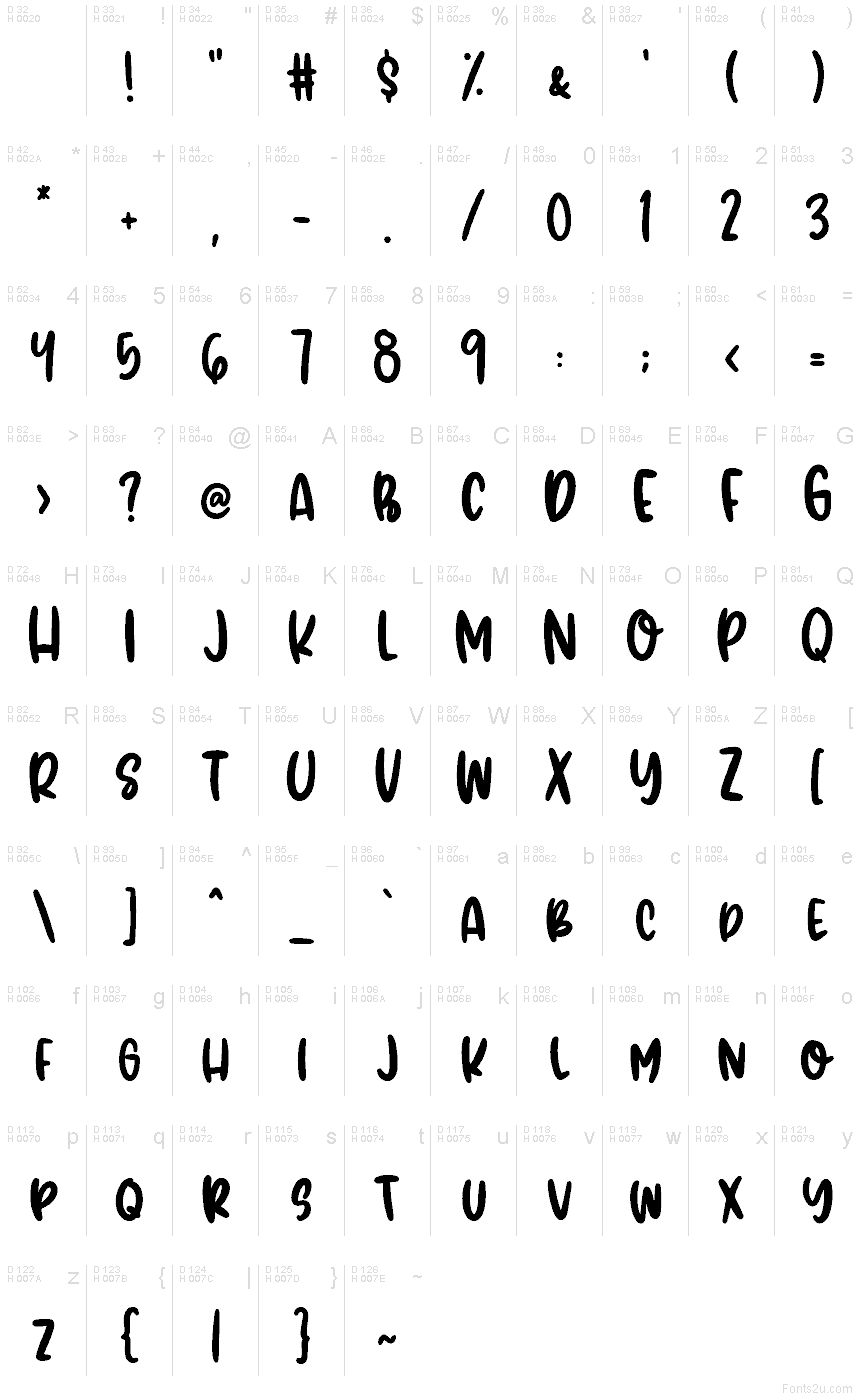
Baby Donuts
Baby Donuts font by Dm Letter Studio - Dimas Prasetyo is a free handwritten font. Thick, frosting-smooth strokes and rounded terminals give it a plush, friendly feel, while the gentle bounce in its rhythm keeps layouts lively without getting messy. The forms are chunky yet open, so headlines stay readable even at smaller sizes—think stickers, tags, and buttons that need instant charm.
Using Baby Donuts, you’ll get cheerful energy for bakery packaging, kids’ branding, party invitations, social posts, greeting cards, and playful menu boards. This free font shines on colorful backdrops and loves high-contrast palettes. For balance, pair it with a simple geometric sans for body copy, and tighten line spacing slightly to keep that snug, cozy look.